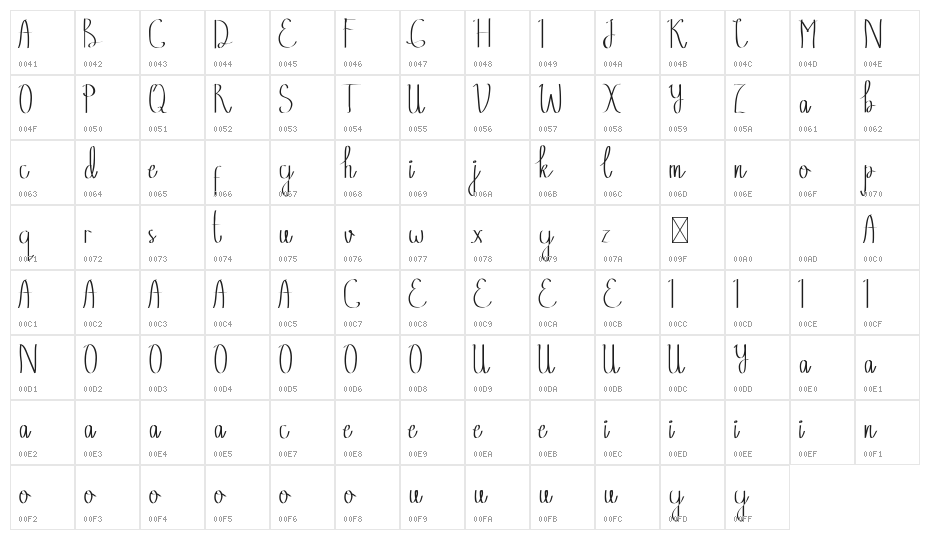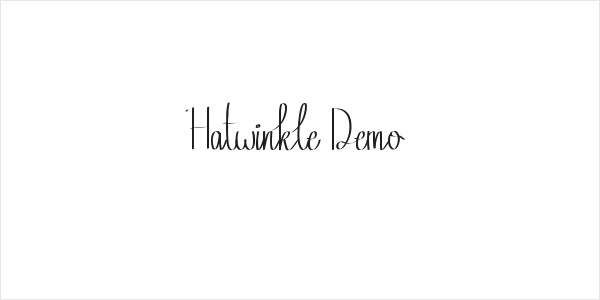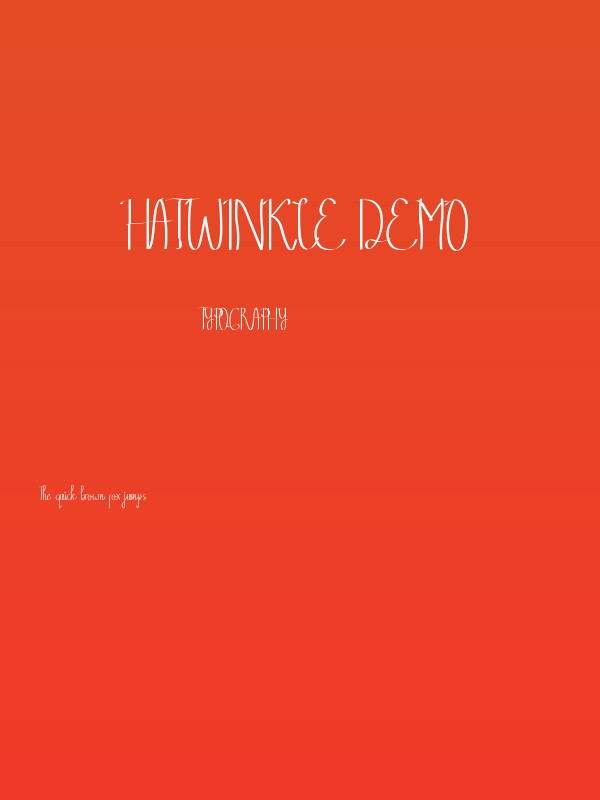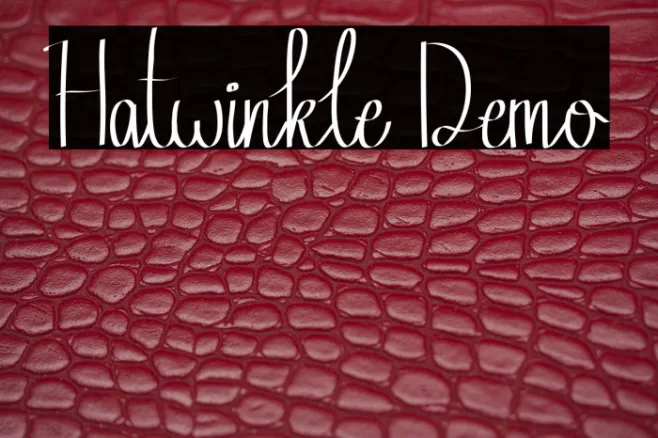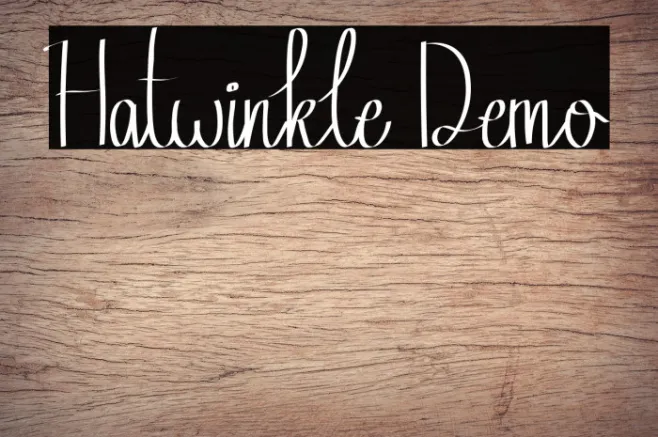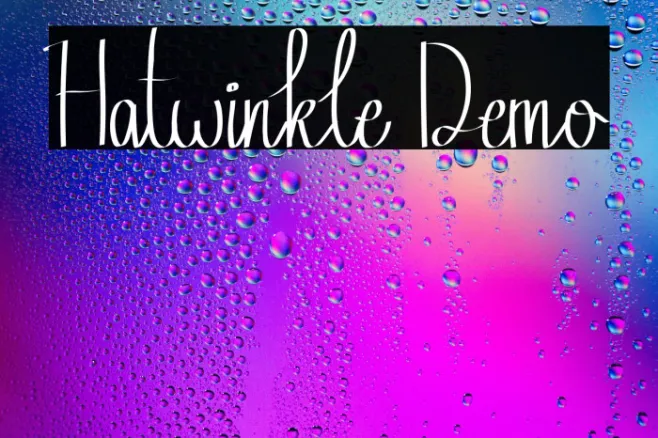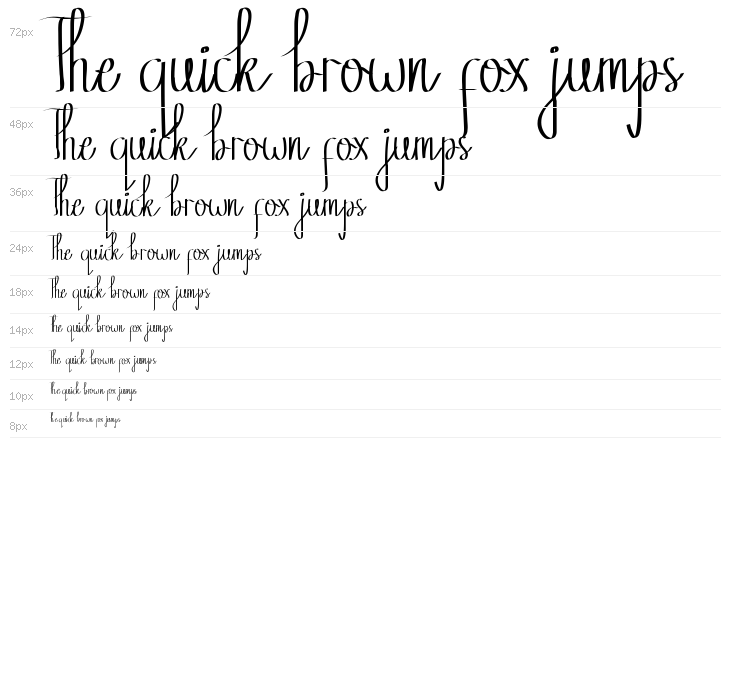
Hatwinkle Demo Font
Hatwinkle Demo Description
This font features an elegant and whimsical design with tall, narrow characters that exhibit a playful yet sophisticated style. The letters have a hand-drawn quality, with flowing lines and subtle curves that add a touch of uniqueness to each character. The uppercase letters are particularly elongated, giving the font a distinctive vertical emphasis. The lowercase letters maintain a consistent style, with some characters featuring charming loops and swirls. The overall appearance is both artistic and refined, making it suitable for creative projects that require a touch of elegance.
| Proposed Projects | Ideal for wedding invitations, greeting cards, artistic posters, and branding that requires a personal touch. |